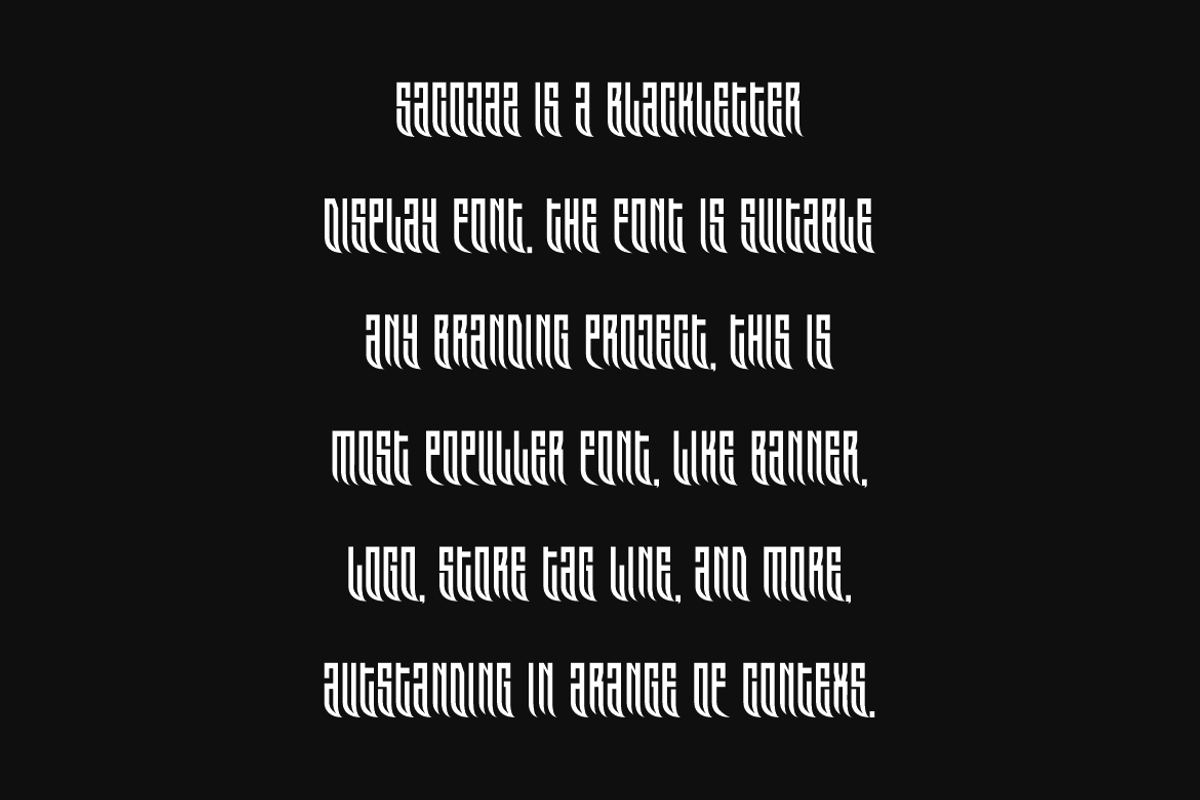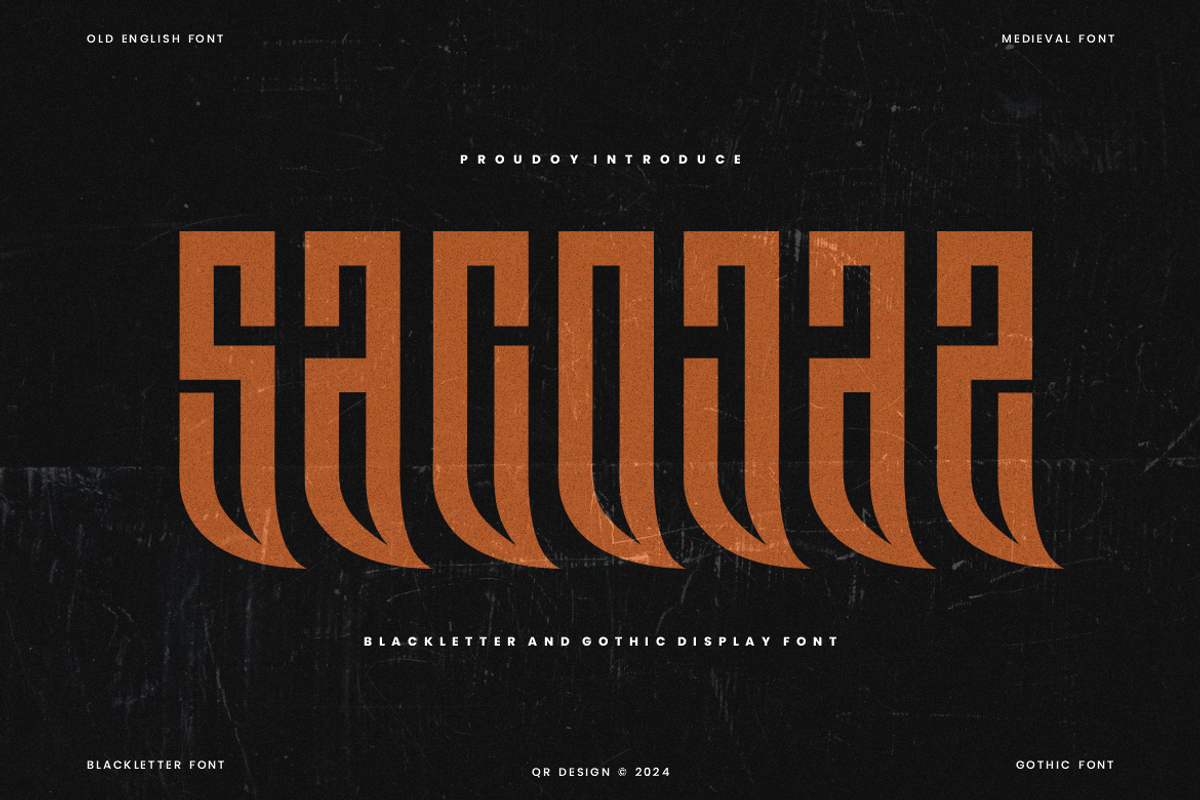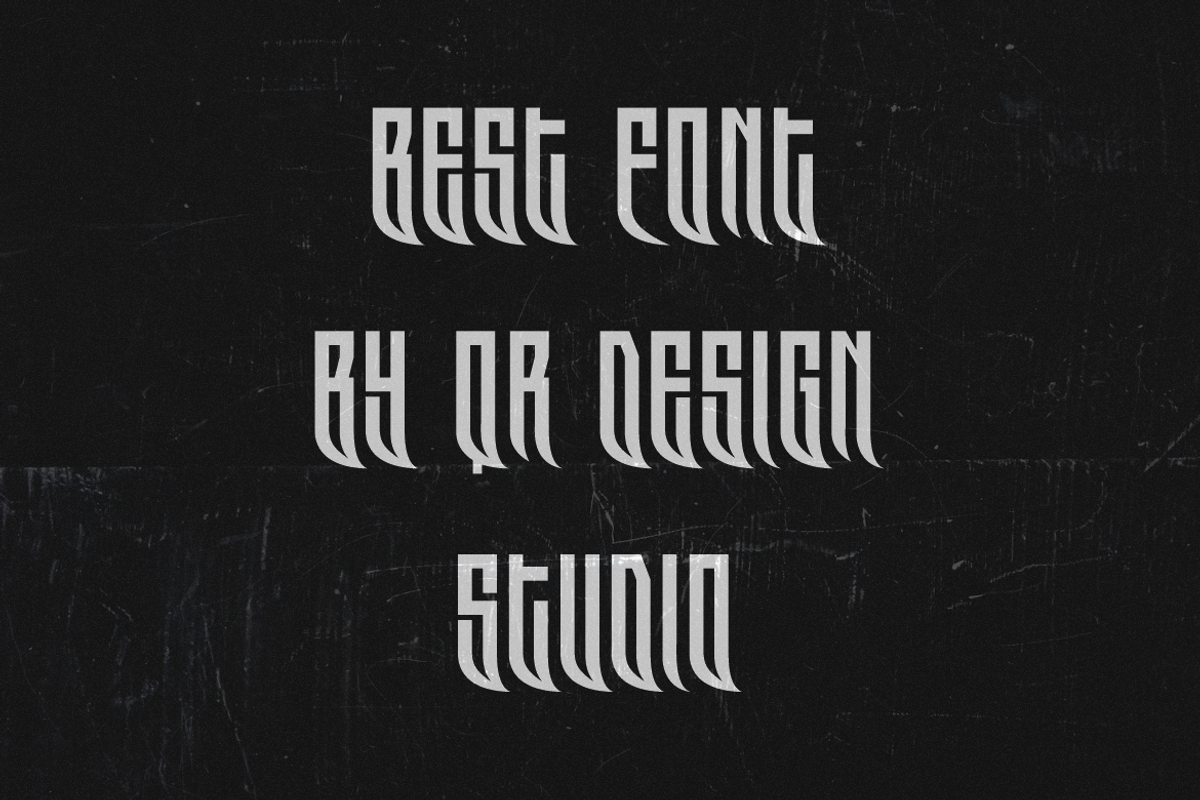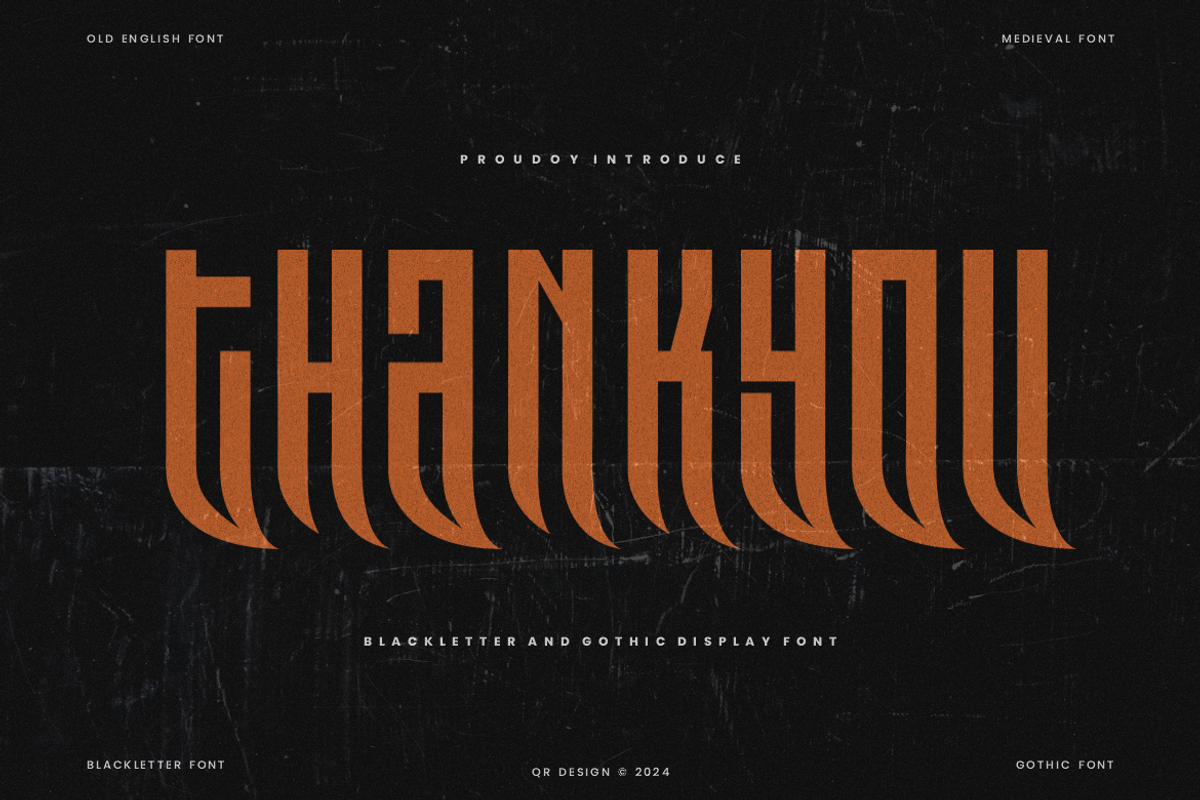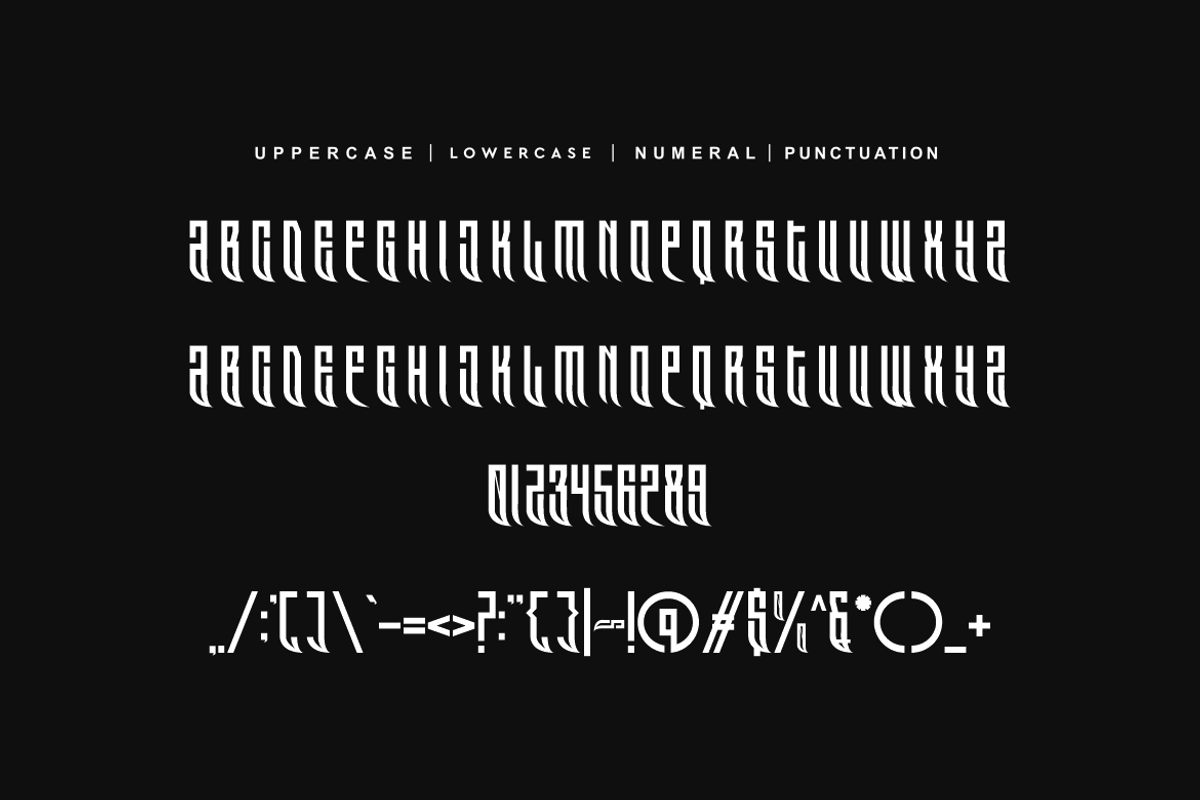
Sacojaz - Blackletter & Gothic Font
Sacojaz - Blackletter & Gothic Font is a bold and authentic display font. The font is suitable for any branding project like poster, logo, sport, and many more. Outstanding in a wide range of contexts.